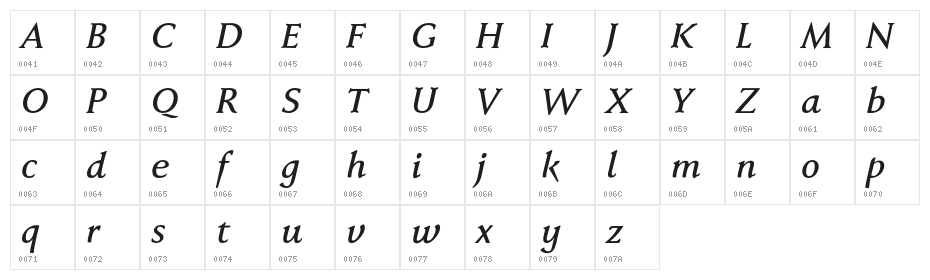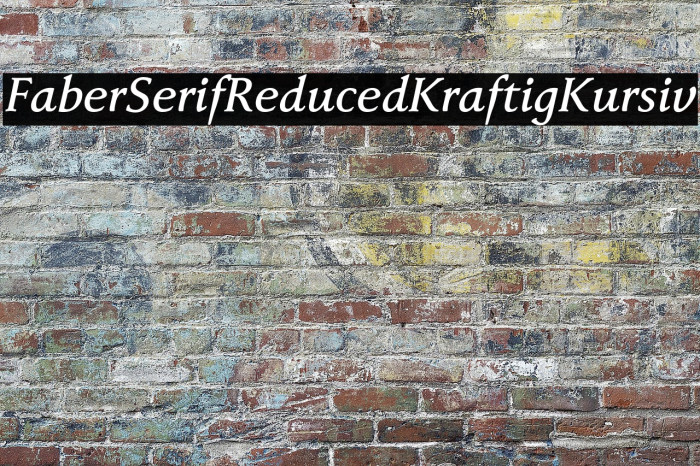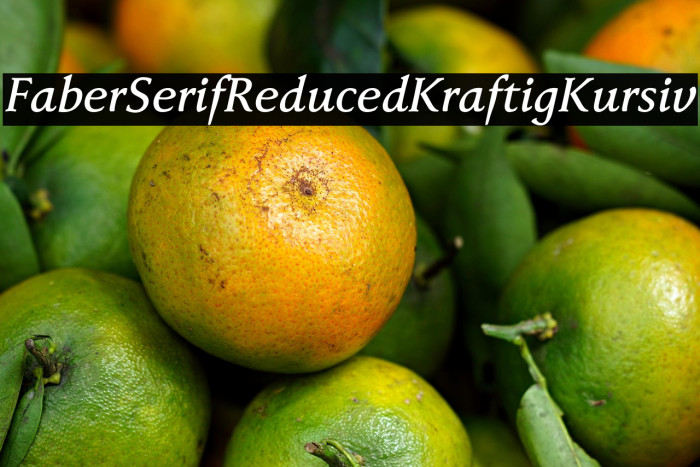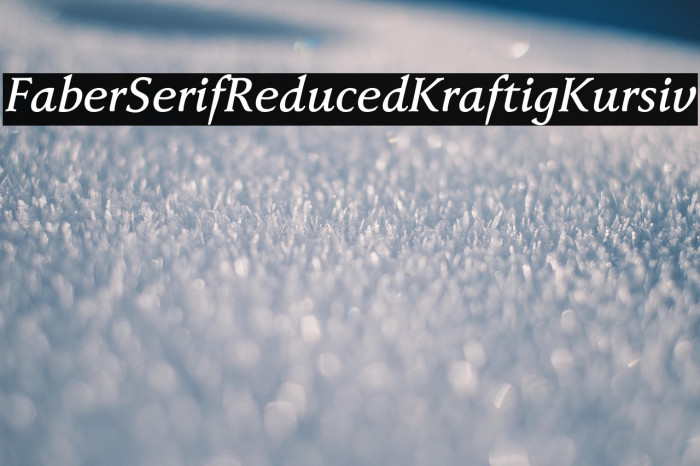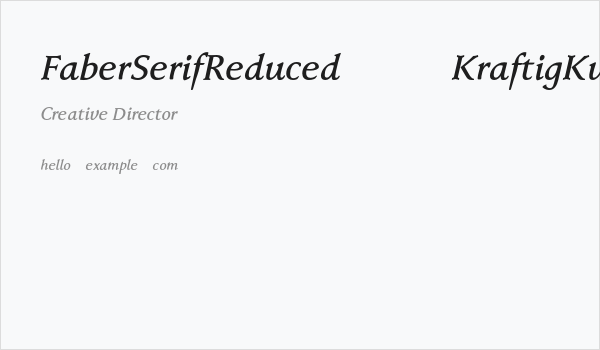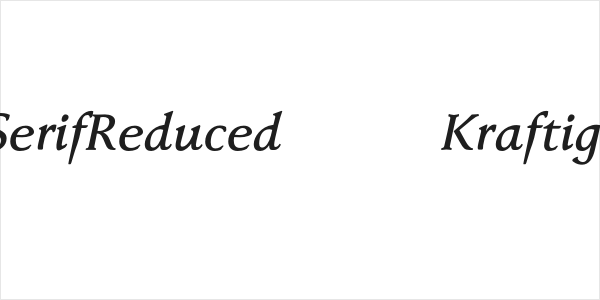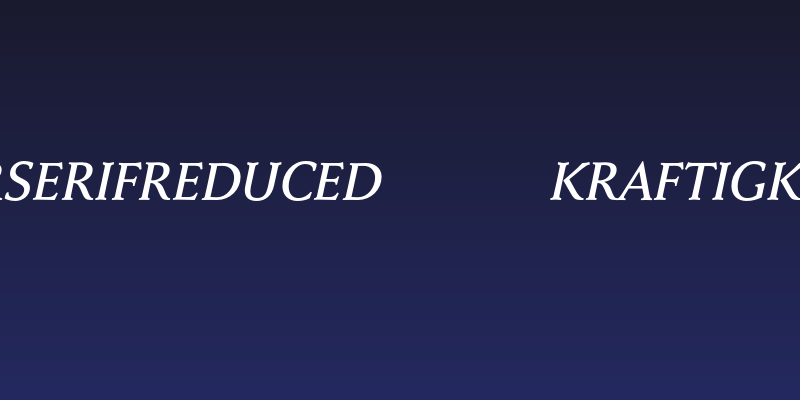
FaberSerifReduced-66KraftigKursiv Font
FaberSerifReduced-66KraftigKursiv Description
This font features a classic serif style with a distinct italic slant, giving it an elegant and sophisticated appearance. The characters are well-defined with moderate contrast between thick and thin strokes, enhancing readability while maintaining a refined look. The serifs are pronounced yet not overly ornate, striking a balance between traditional and modern aesthetics. The overall design is cohesive, with a slight inclination that adds a dynamic feel to the text. This font is versatile, suitable for both formal and creative applications.
Overall StyleClassic
Proposed ProjectsIdeal for book covers, formal invitations, branding materials, and editorial design.